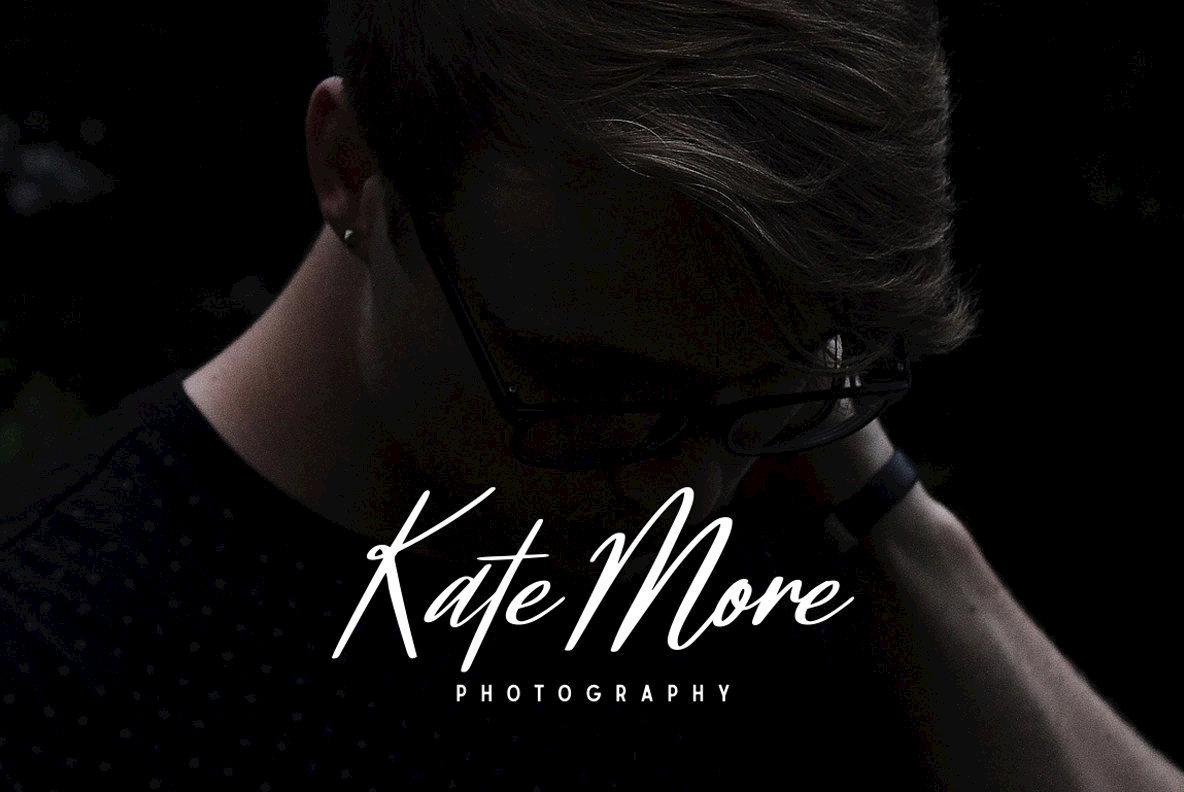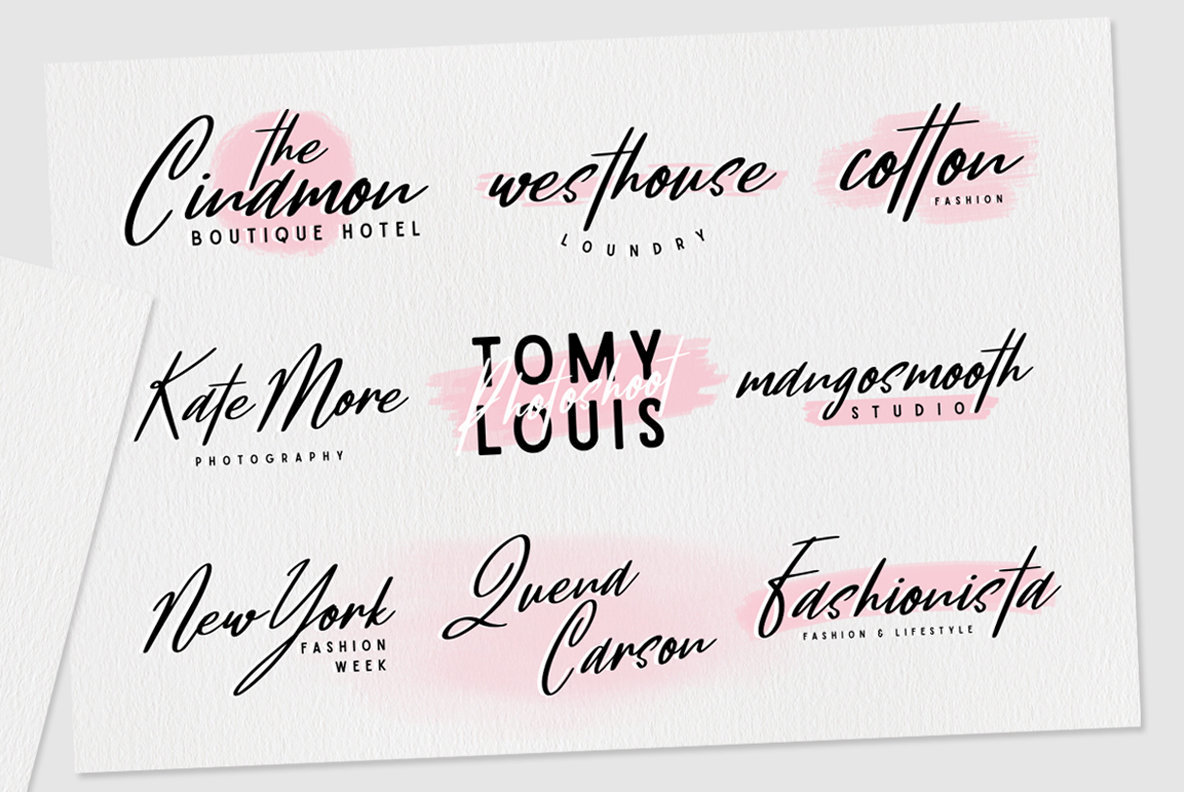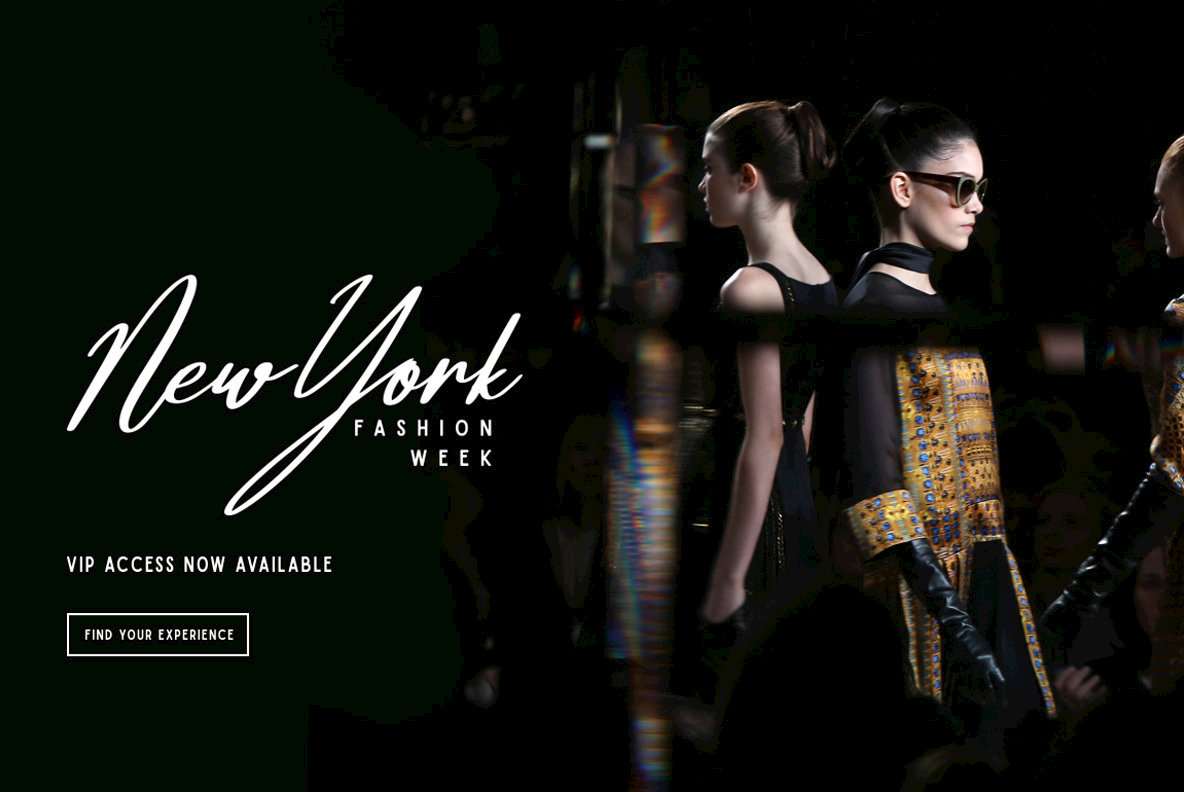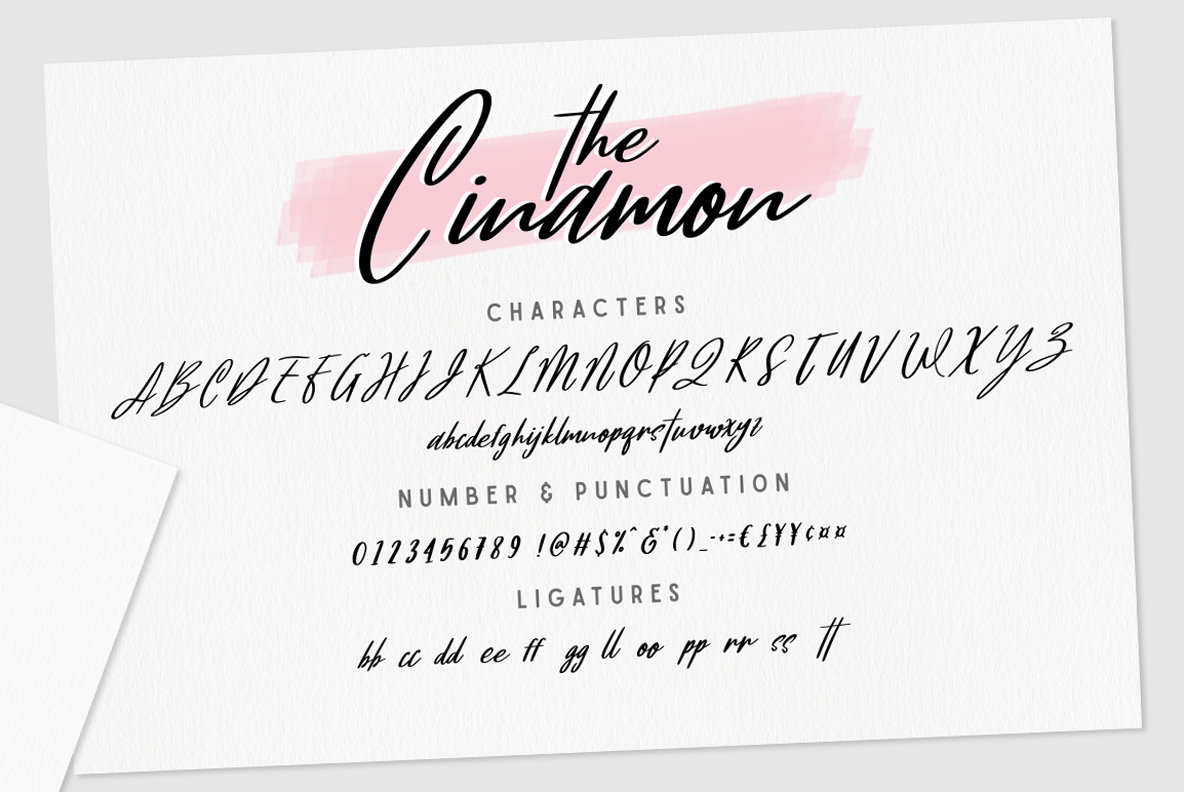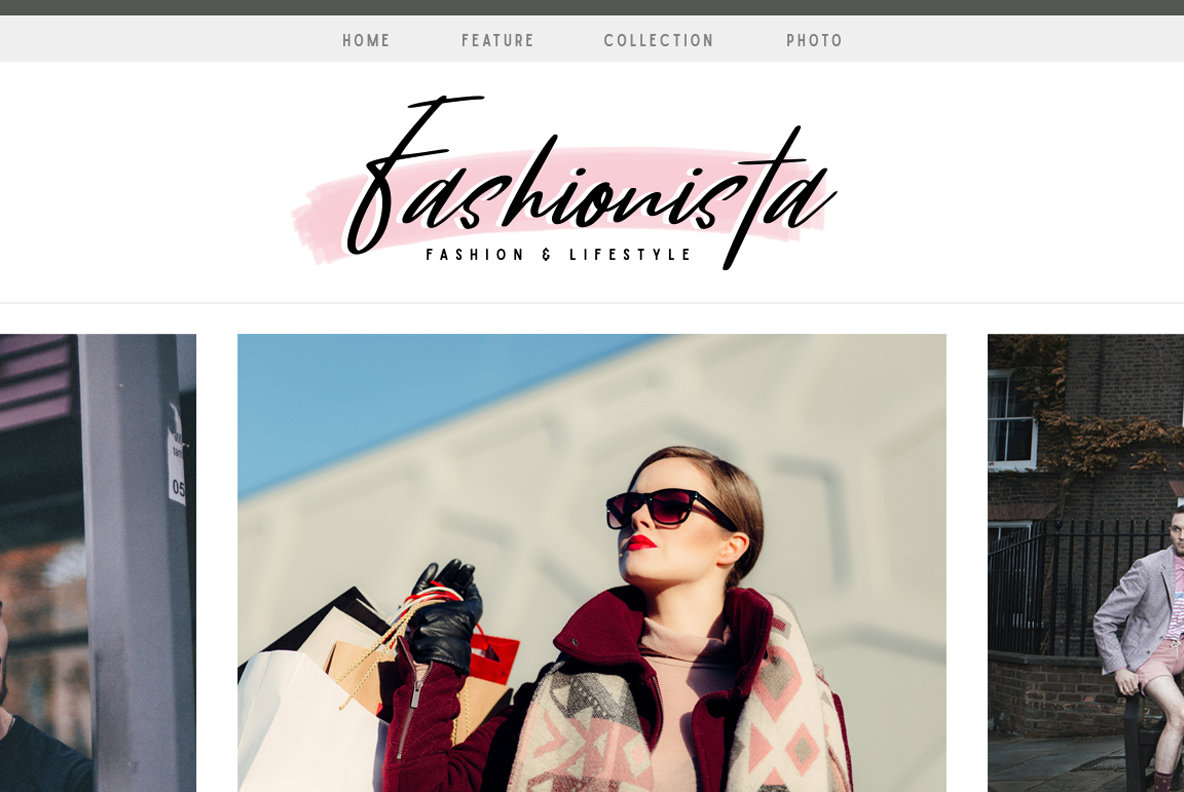
Cinamon Font
Cinamon offers a refined, handwritten aesthetic, ideal for capturing the essence of personal branding. Designed with ease of use in mind, this font seamlessly adapts to various branding projects, particularly those that require a feminine touch. Along with Cinamon, enjoy the added flexibility of the Sailors Regular font, providing additional options for your creative endeavors.Cinamon: A Distinct Handwritten Signature Font